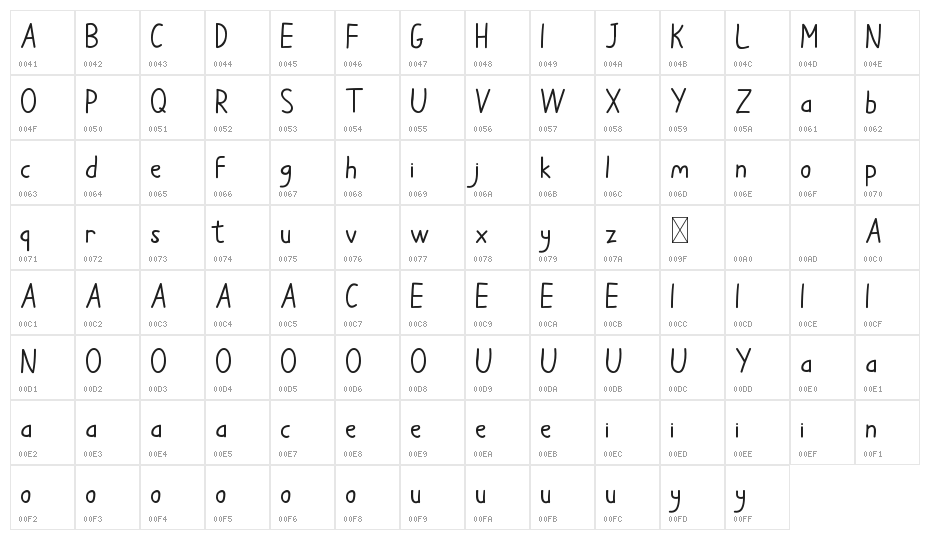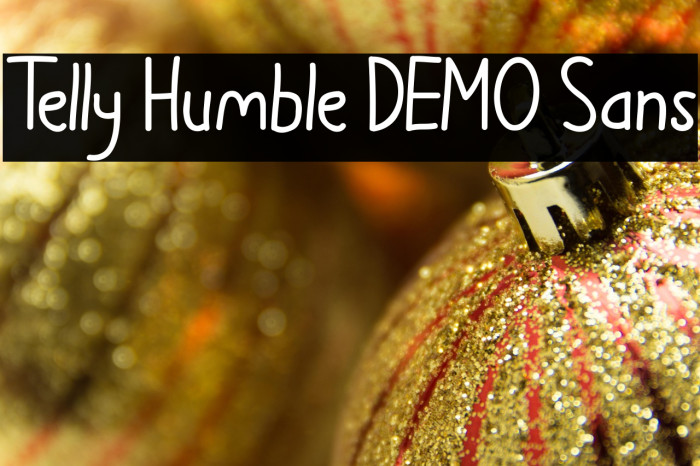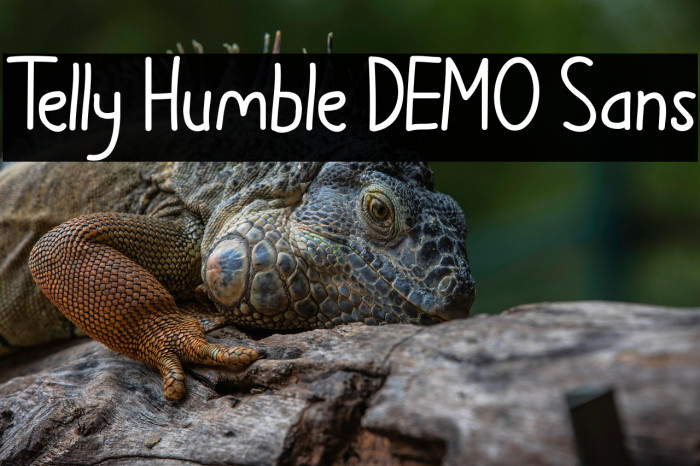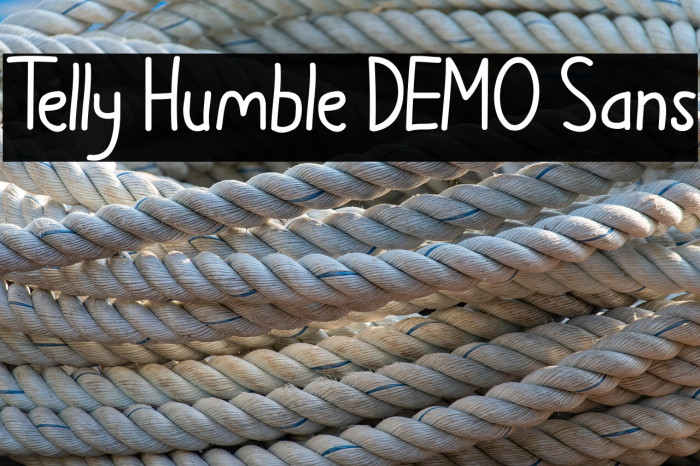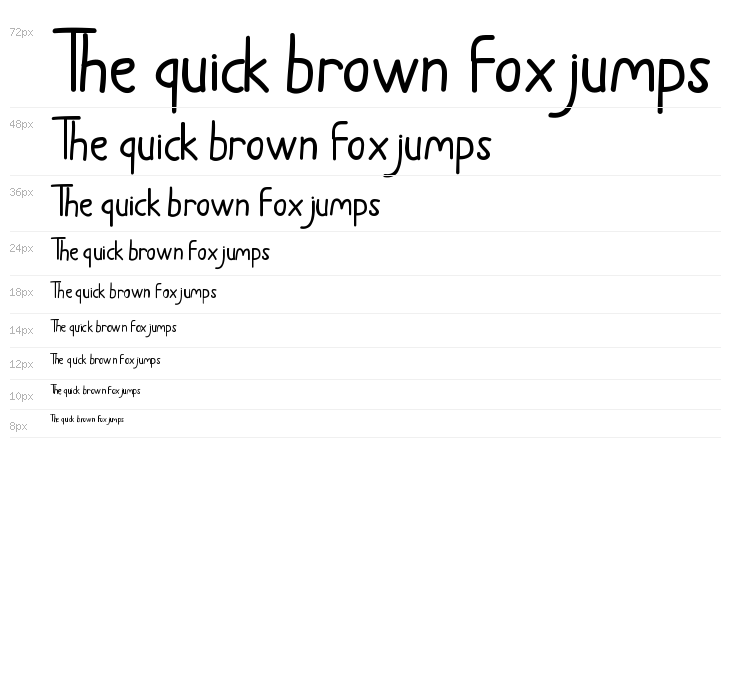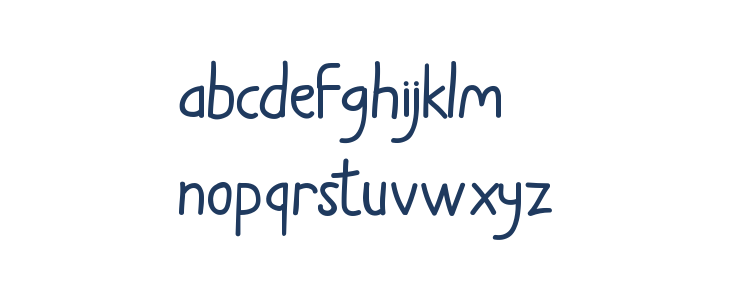
Telly Humble DEMO Sans Font
Telly Humble DEMO Sans Description
This font features a playful and informal style, characterized by its hand-drawn appearance. The letters are slightly irregular, giving it a whimsical and approachable feel. The strokes are consistent in width, providing a uniform look across all characters. The uppercase and lowercase letters maintain a friendly and casual aesthetic, making it suitable for projects that require a personal touch. The font's overall design is clean and legible, with a slight tilt that adds to its charm. It is versatile enough to be used in various contexts, from children's books to creative branding.
Overall StylePlayful
Proposed ProjectsIdeal for children's books, creative branding, greeting cards, and playful posters.